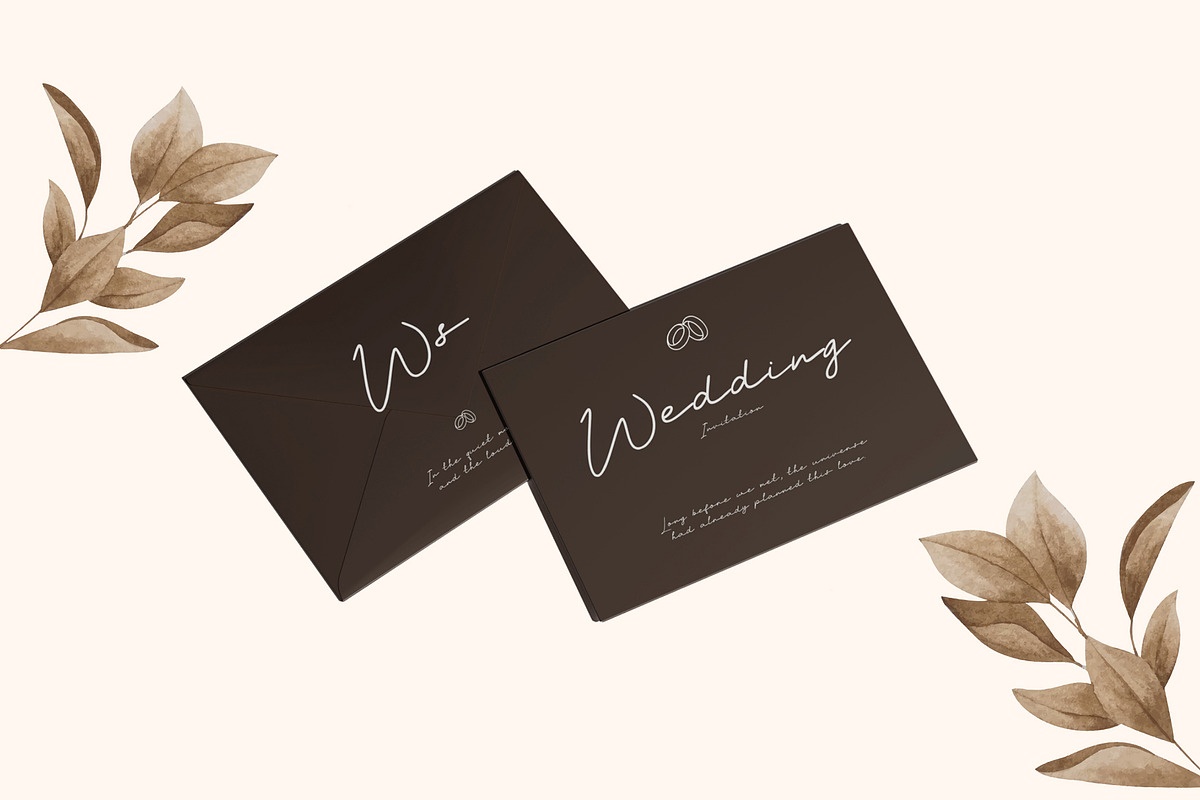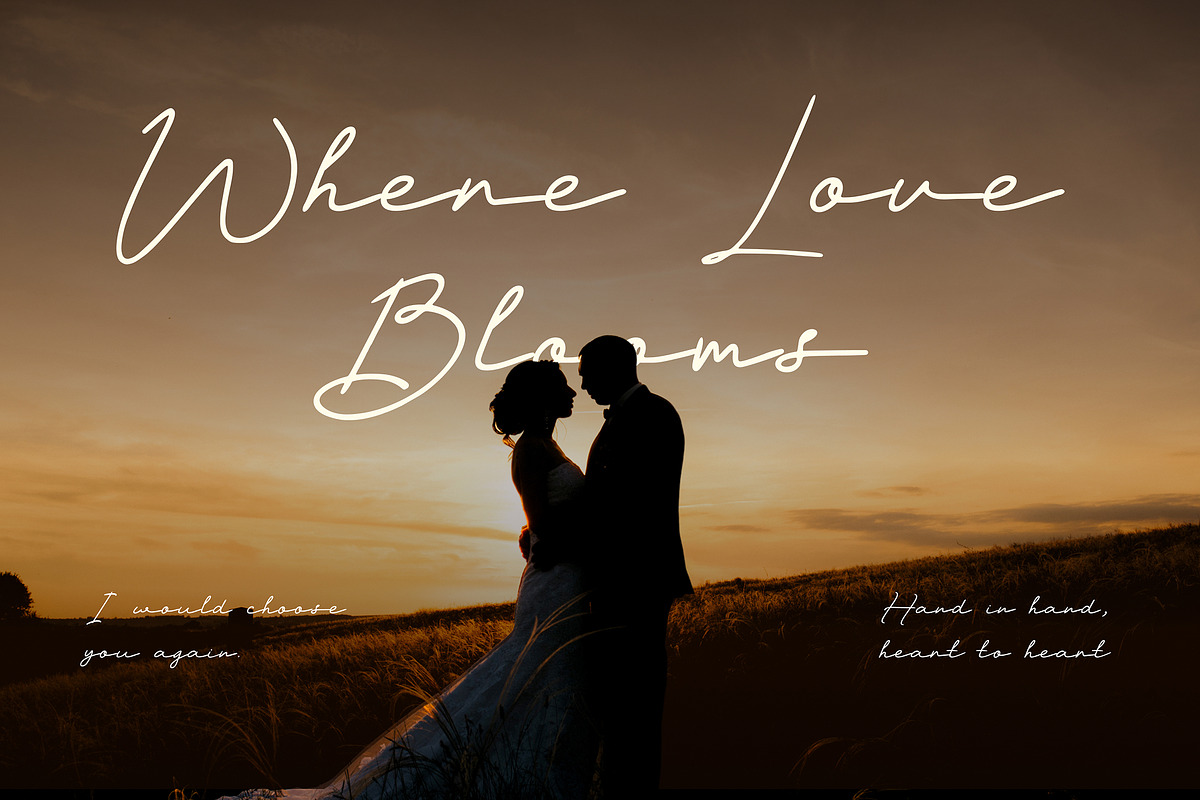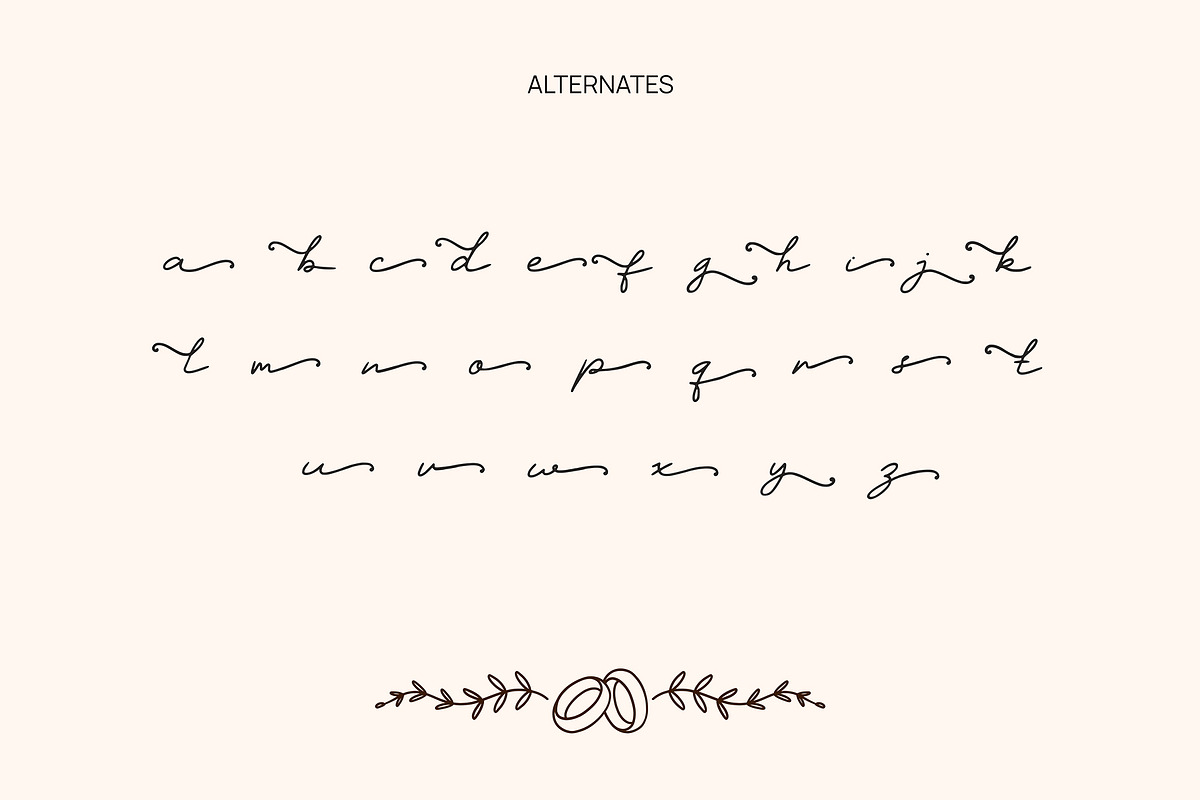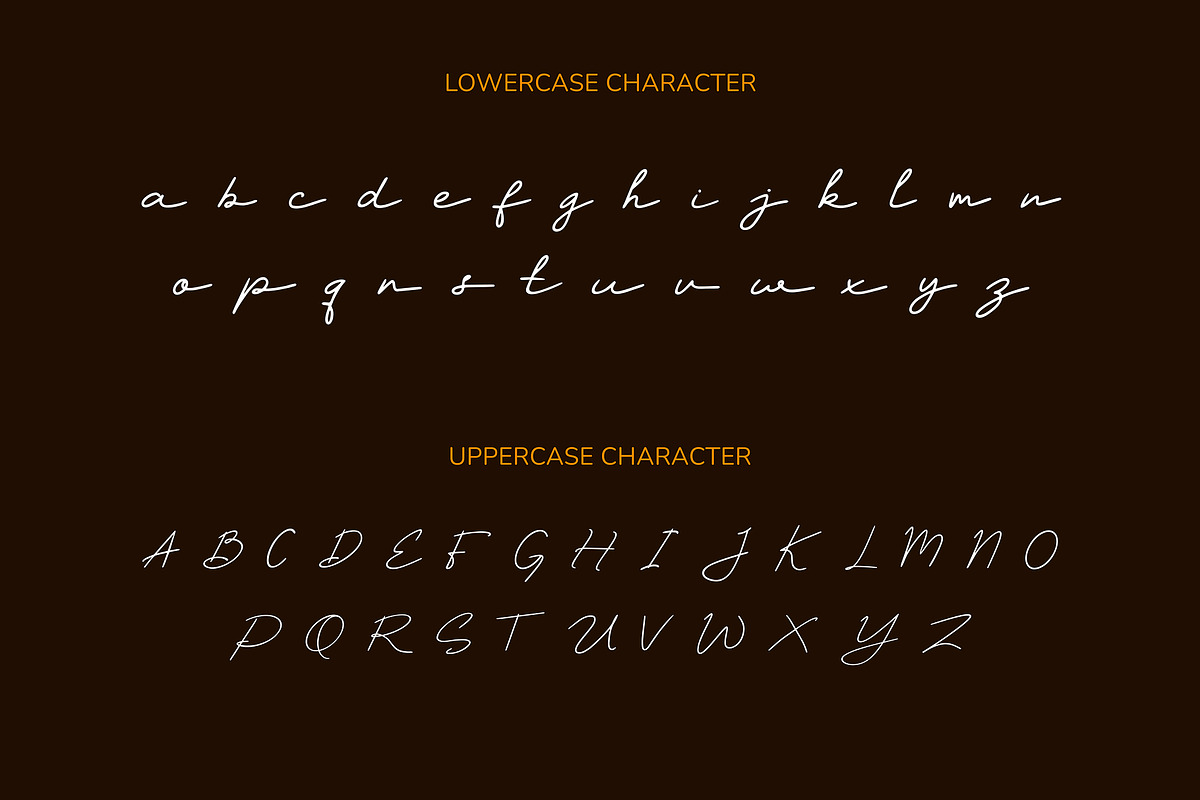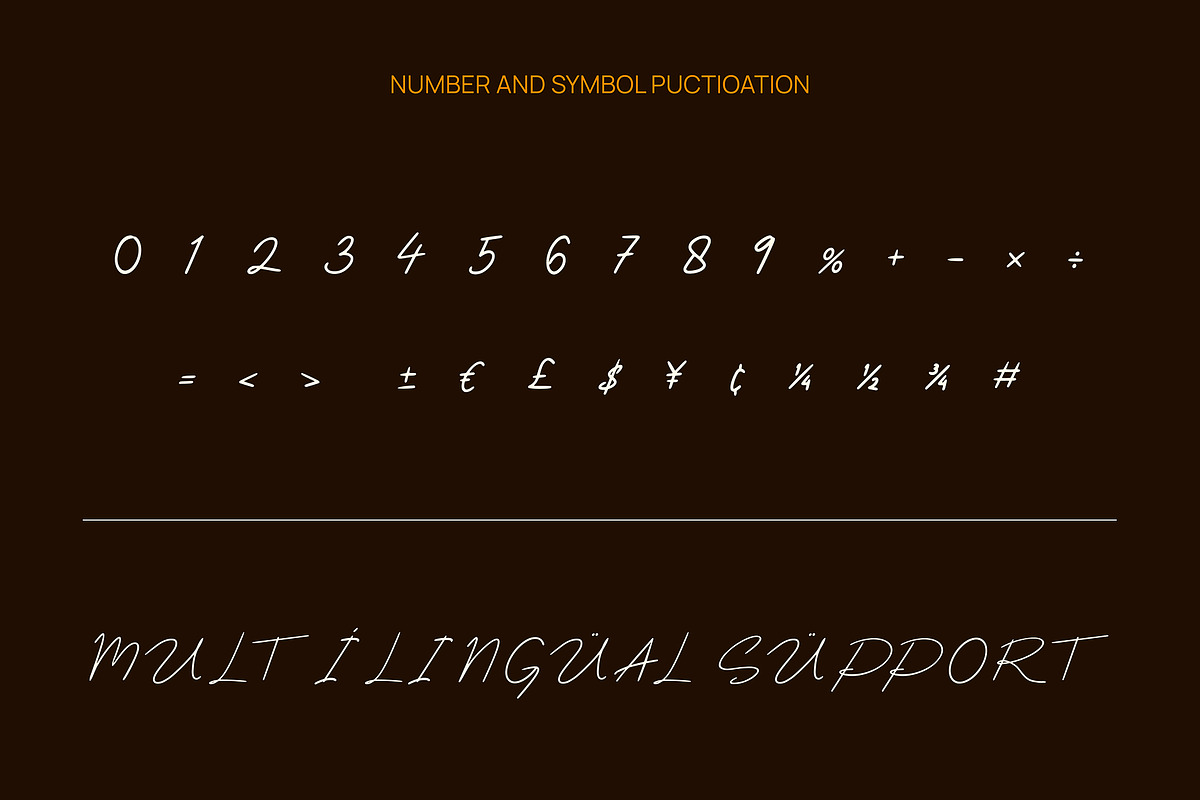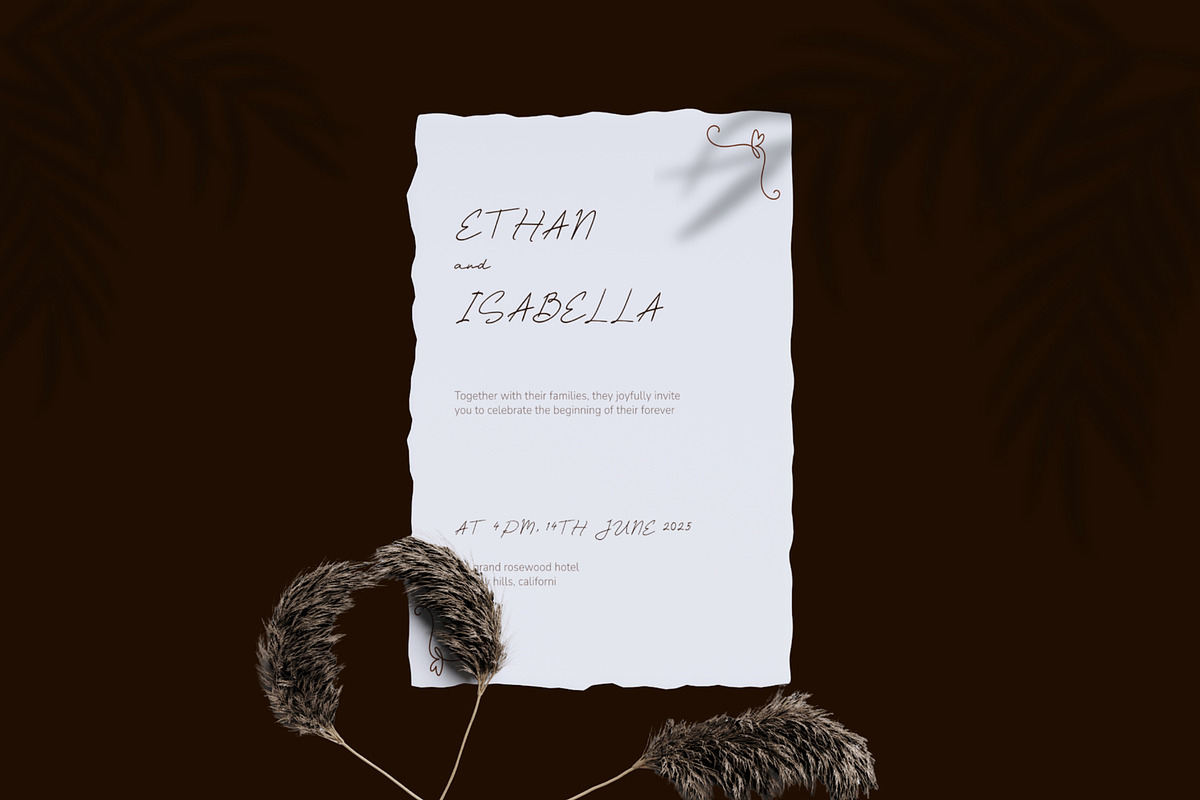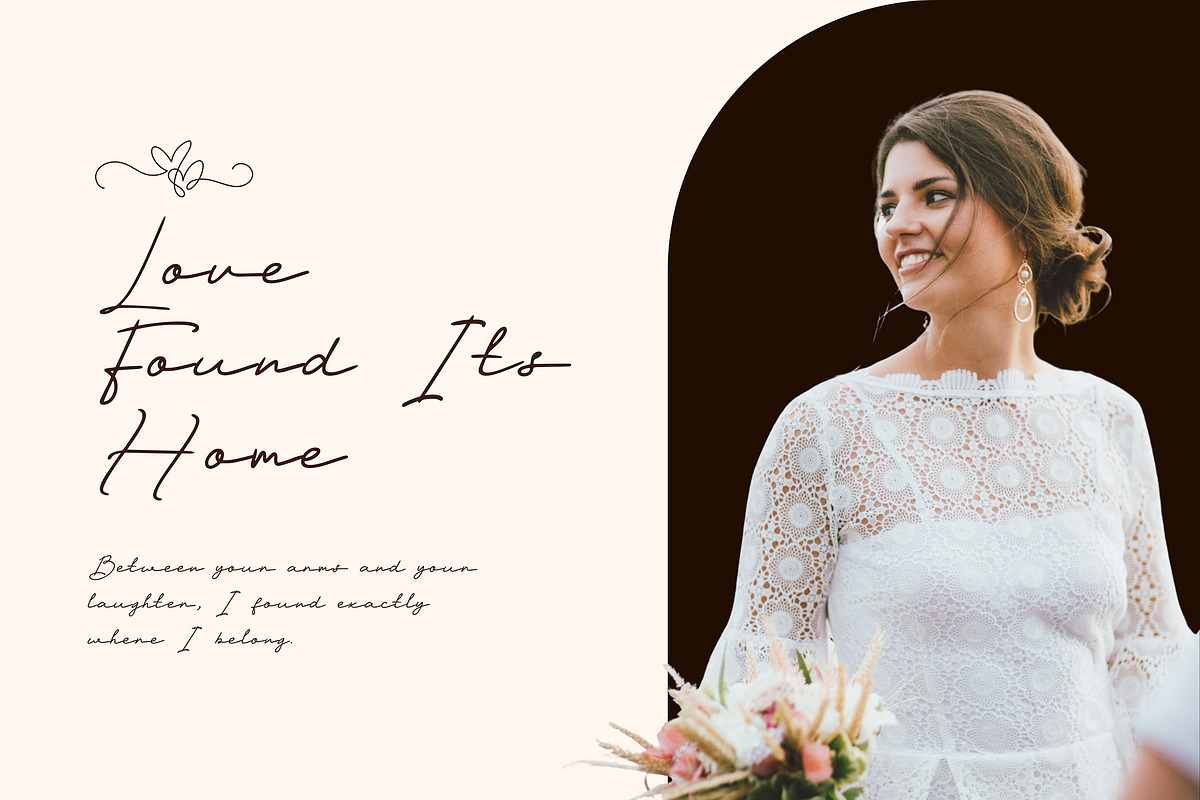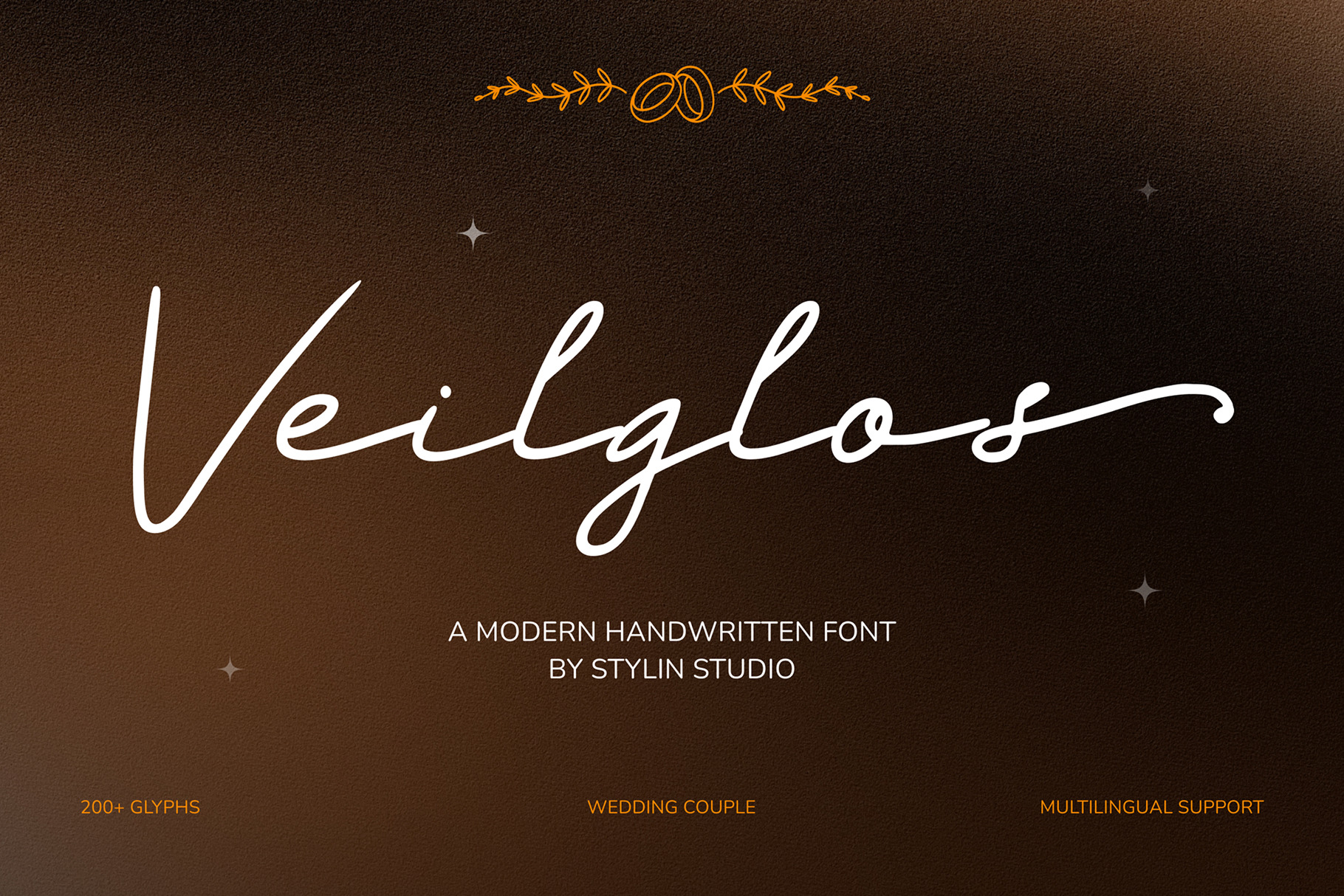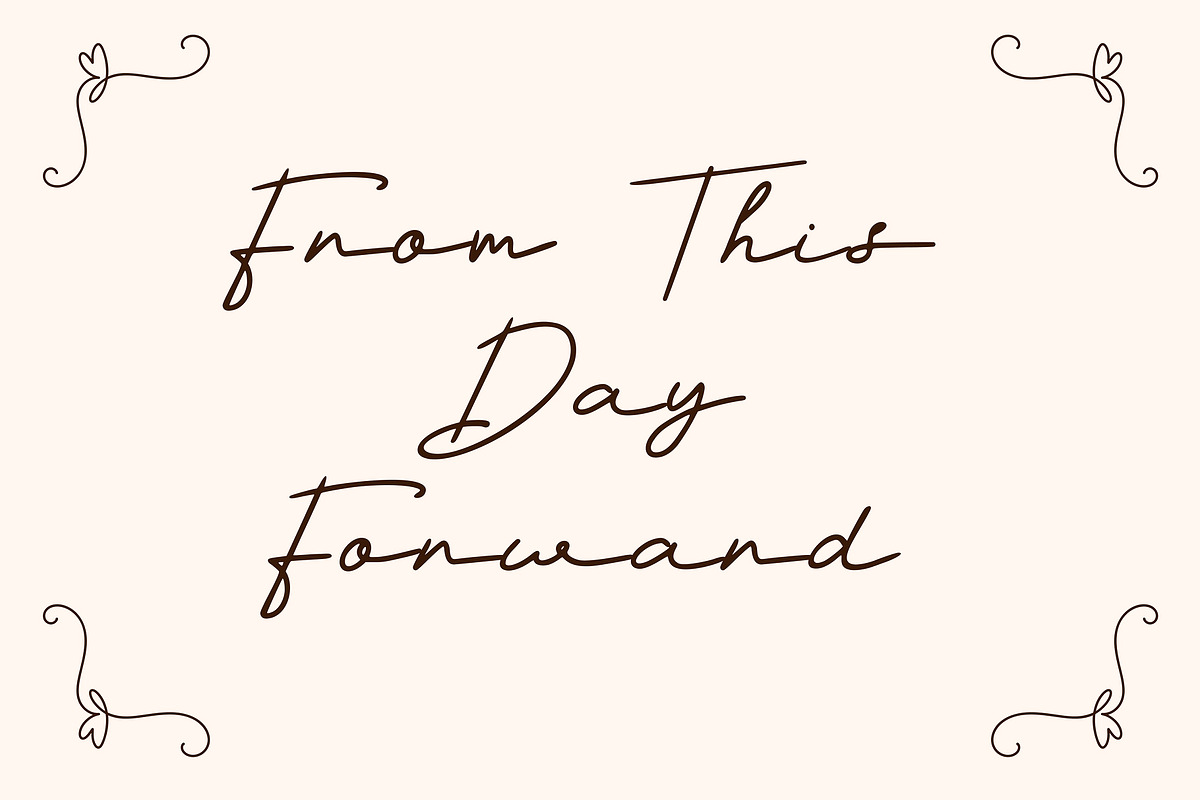
Elegance Wedding – Veilglos Font
Elegance Wedding – Veilglos Font is a graceful handwritten typeface designed to bring a romantic and sophisticated touch to every design. With its flowing strokes, delicate curves, and elegant letterforms, Veilglos creates a timeless aesthetic that feels personal, refined, and beautifully expressive. Perfect for projects that aim to convey love, elegance, femininity, and celebration.
From wedding invitations to bridal stationery, Veilglos adds a delicate and elegant character to every project. Its flowing handwritten style makes it ideal for wedding logos, invitations, save-the-date cards, greeting cards, romantic branding, social media visuals, packaging, quotes, and feminine editorial designs.